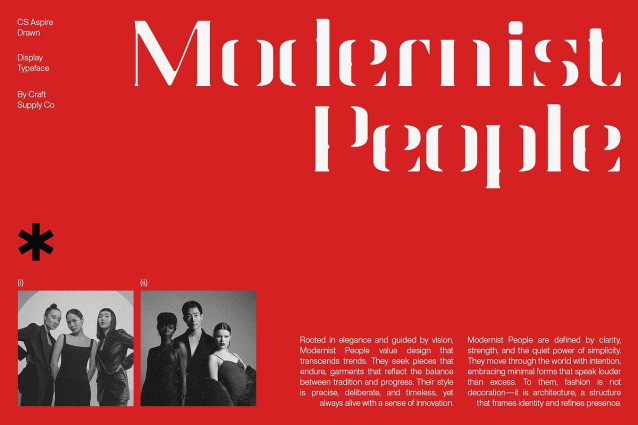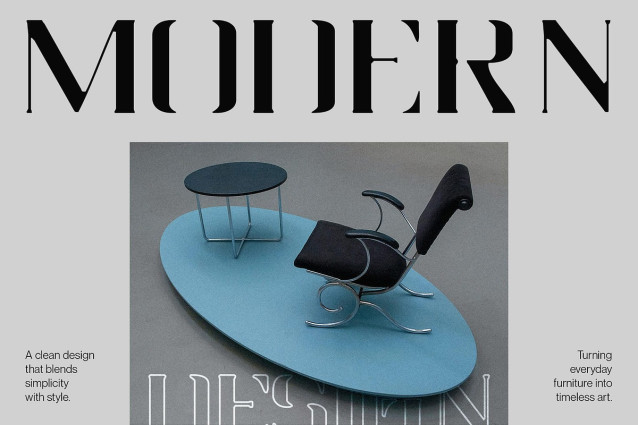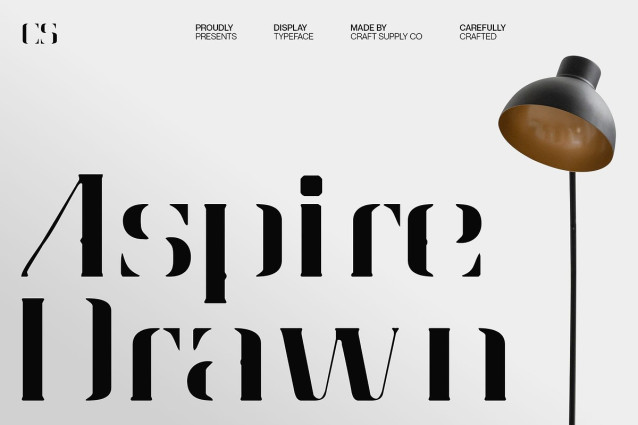
CS Aspire Drawn Font
CS Aspire Drawn Font – This is a techno-inspired serif display font designed to capture modern energy with bold and striking letterforms. Its futuristic shapes command attention, blending sharp edges with innovative design to create a font that feels powerful, sleek, and forward-looking.
Drawn Texture with Stencil-Like Personality The hand-drawn texture adds a crafted, authentic finish that gives the font a distinctive edge. With stencil-style characteristics, introduces an industrial yet artistic vibe, making each character feel raw, expressive, and visually dynamic.
Perfect Balance of Modern and Handmade While rooted in futuristic design, the drawn details balance its modern precision with human artistry. This unique combination allows to stand out not only as a technological font but also as a versatile tool for creative and experimental projects.
Versatile Across Creative Applications From impactful branding to eye-catching logos, posters, and editorial layouts, adapts seamlessly to diverse design needs. Its bold structure, futuristic personality, and crafted finish ensure your text leaves a lasting impression across digital and print media.